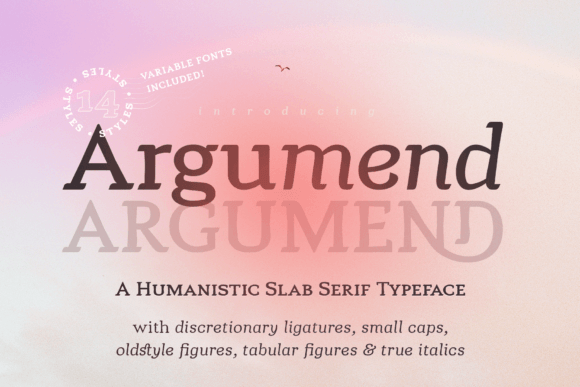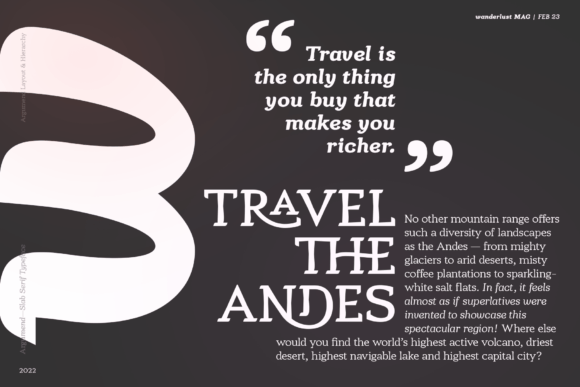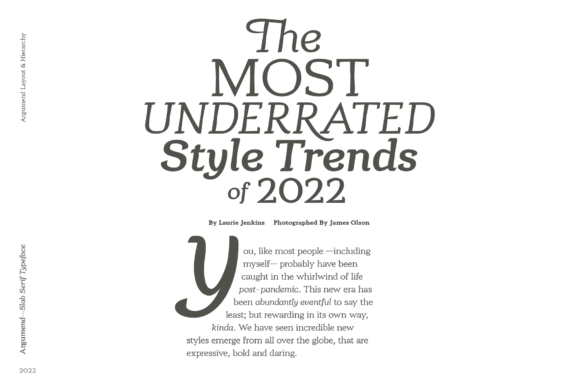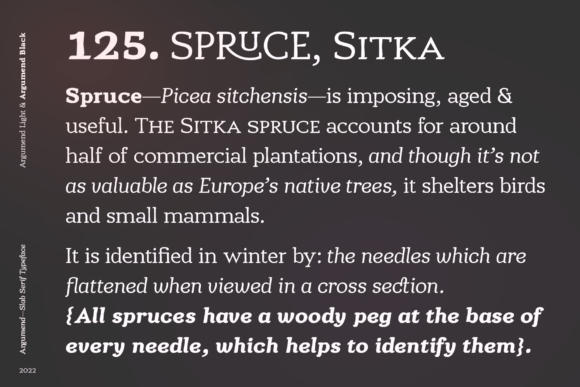
About Argumend
Argumend is a versatile slab serif typeface with a wide range of Opentype features. Create strong and eye-catching headlines with its upper case ligatures or make use of its many weights and true italics to create mindful body copy; either way, Argumend is rich with typographic options to help create attention-worthy text. This font is PUA encoded, which means you can access all of the glyphs and swashes with ease!